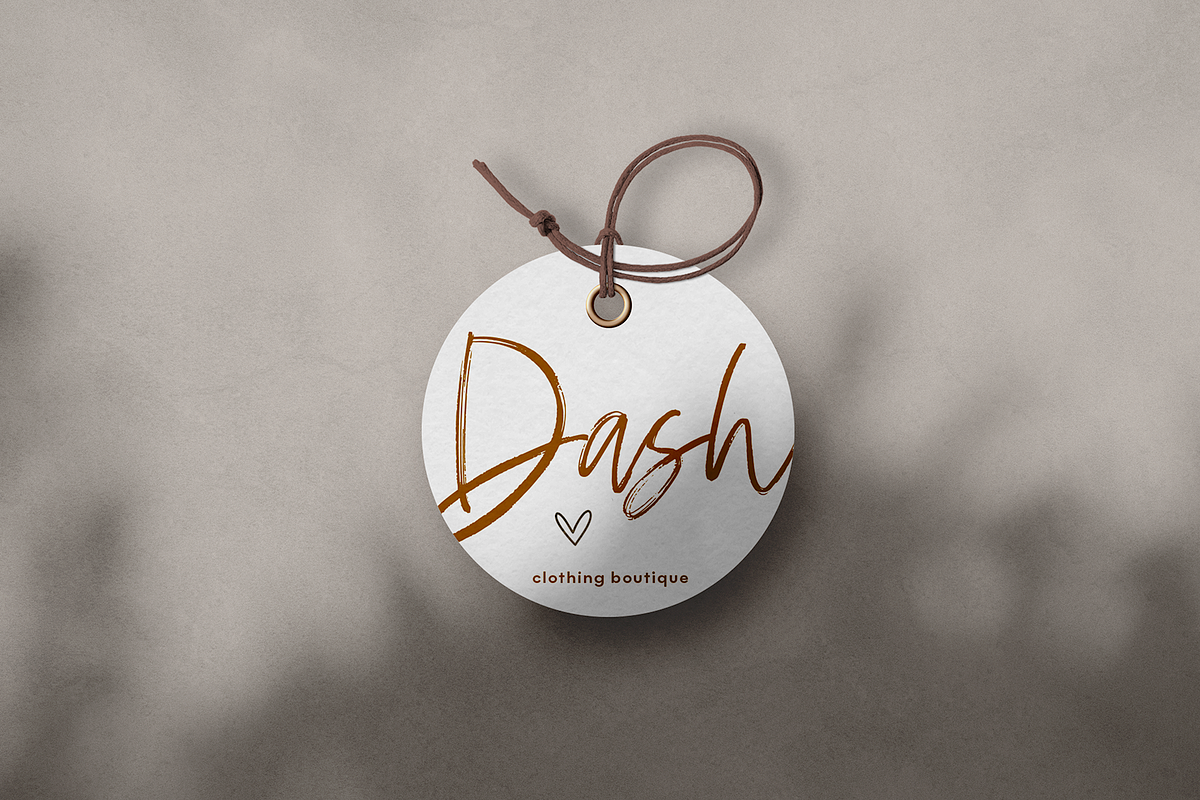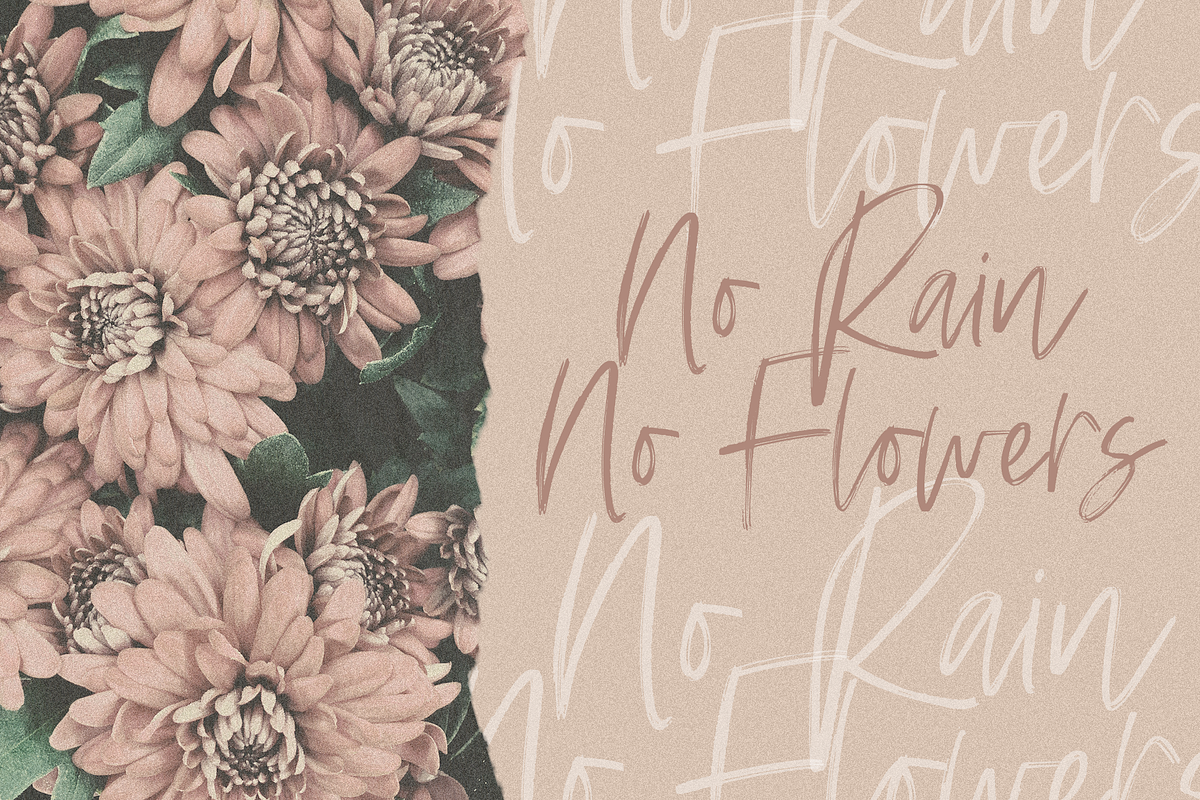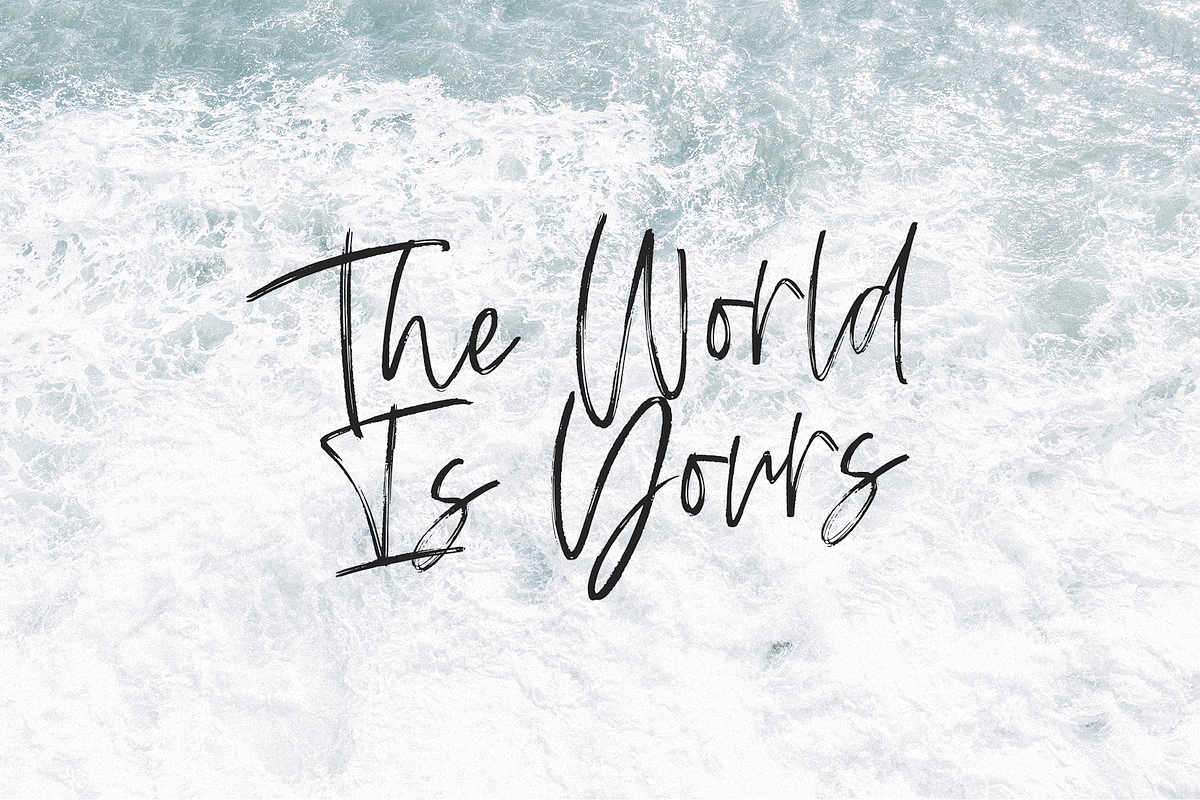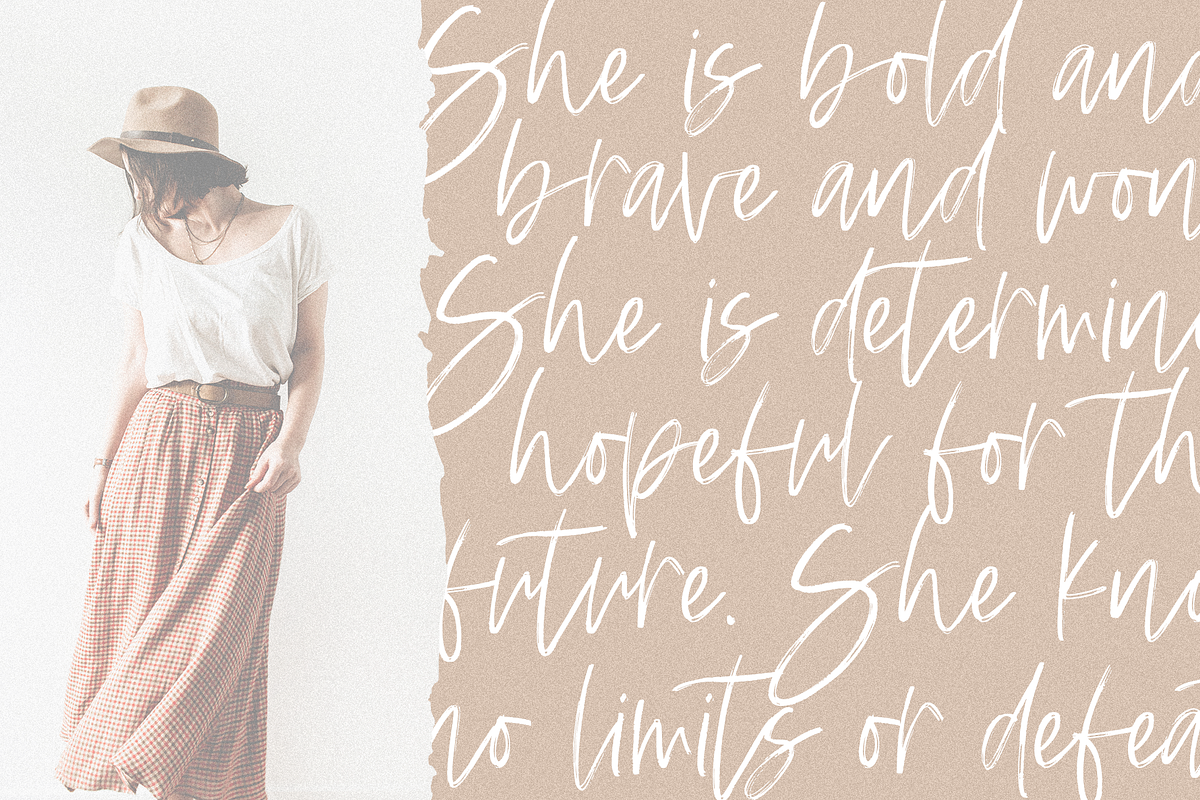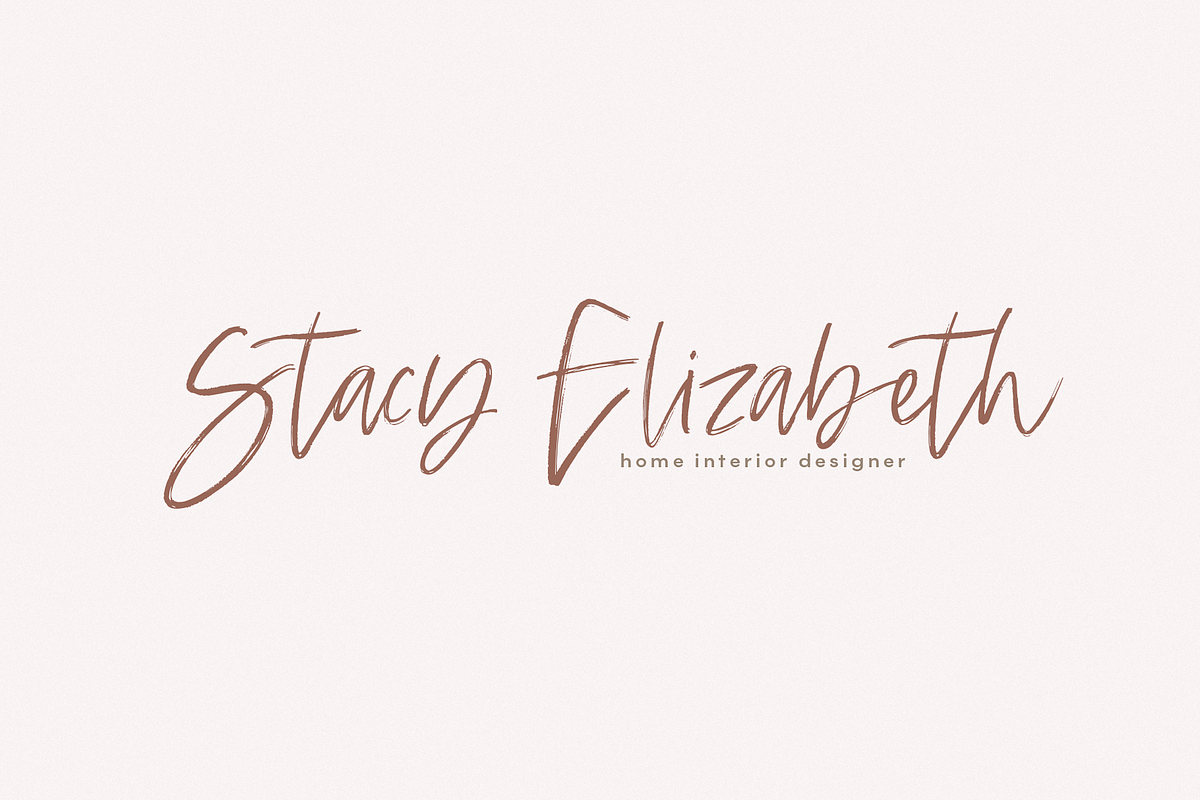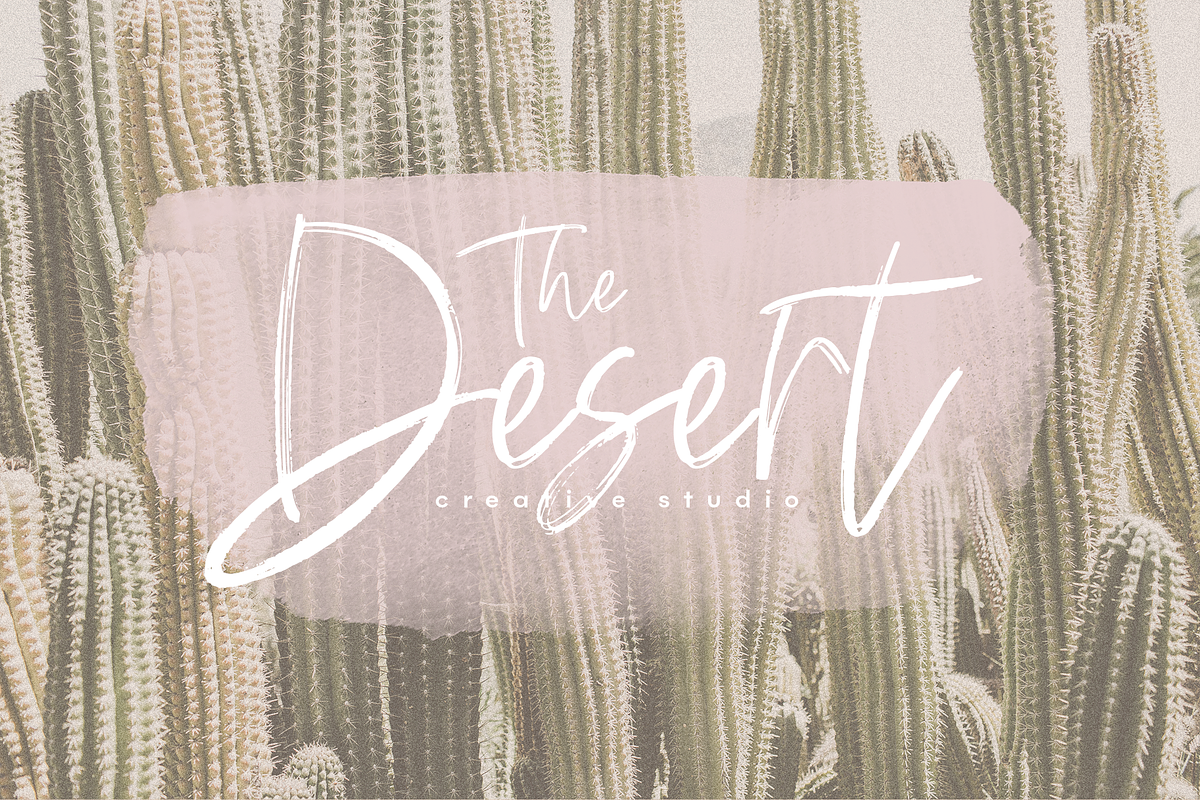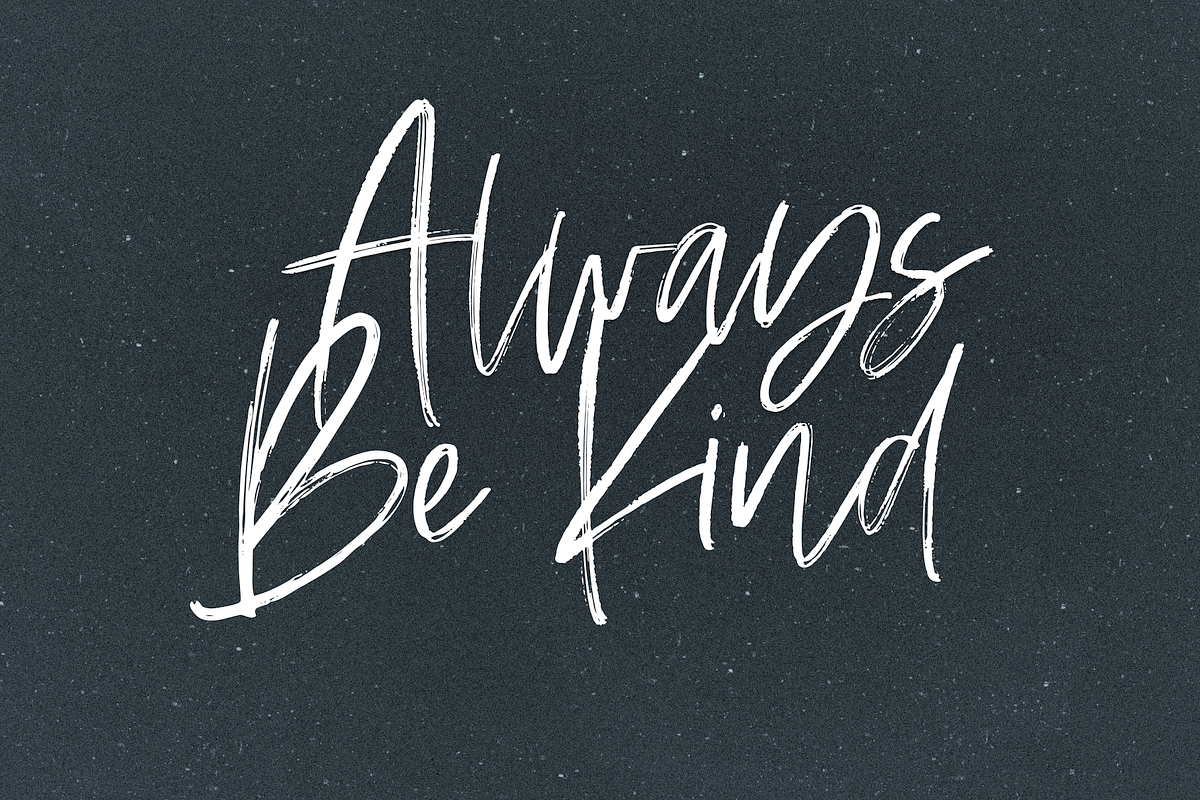
Darling | Handwritten Script Font
Darling is a textured handwritten script font.
This font is perfect for modern projects, headings, blogs, logos, brandings, invitations, and more!
Most accent characters are included.
Darling | Handwritten Script Font by KA Designs fits naturally into Branding, posters, packaging, typography.